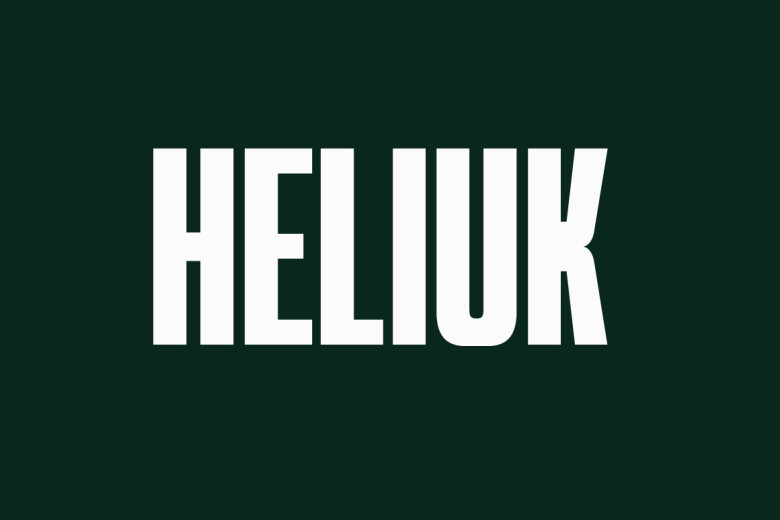
Heliuk Font
Heliuk is a condensed type of font with a different character from the previous condensed font. Heliuk has a strong but soft character, cheerful and fresh theme, and it fits up with any of your current needs despite all these contradictory connotations No two font types are exactly alike. Heliuk also offers you the United States of America as a free vector to get very cool bonus.
Its weight makes it suitable for posters, social media and headlines in both ads and articles anywhere, magazine titles, clothes labels – and wherever else where you wish to spot it. Let’s make your imagination a reality with heliuk, inspired by the design styles that are currently in vogue!
Heliuk Display Font